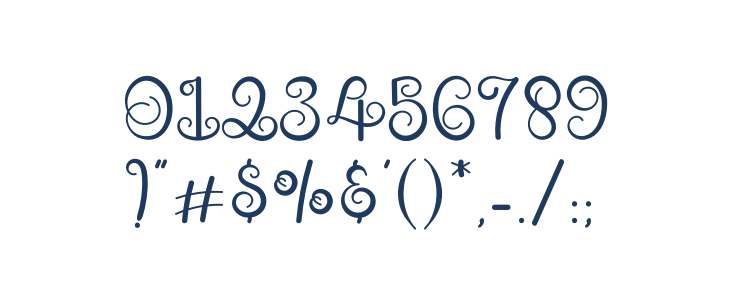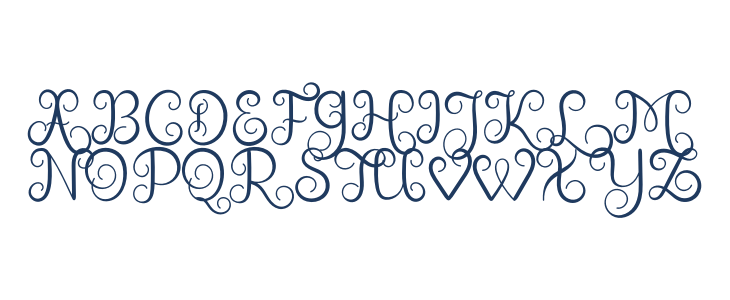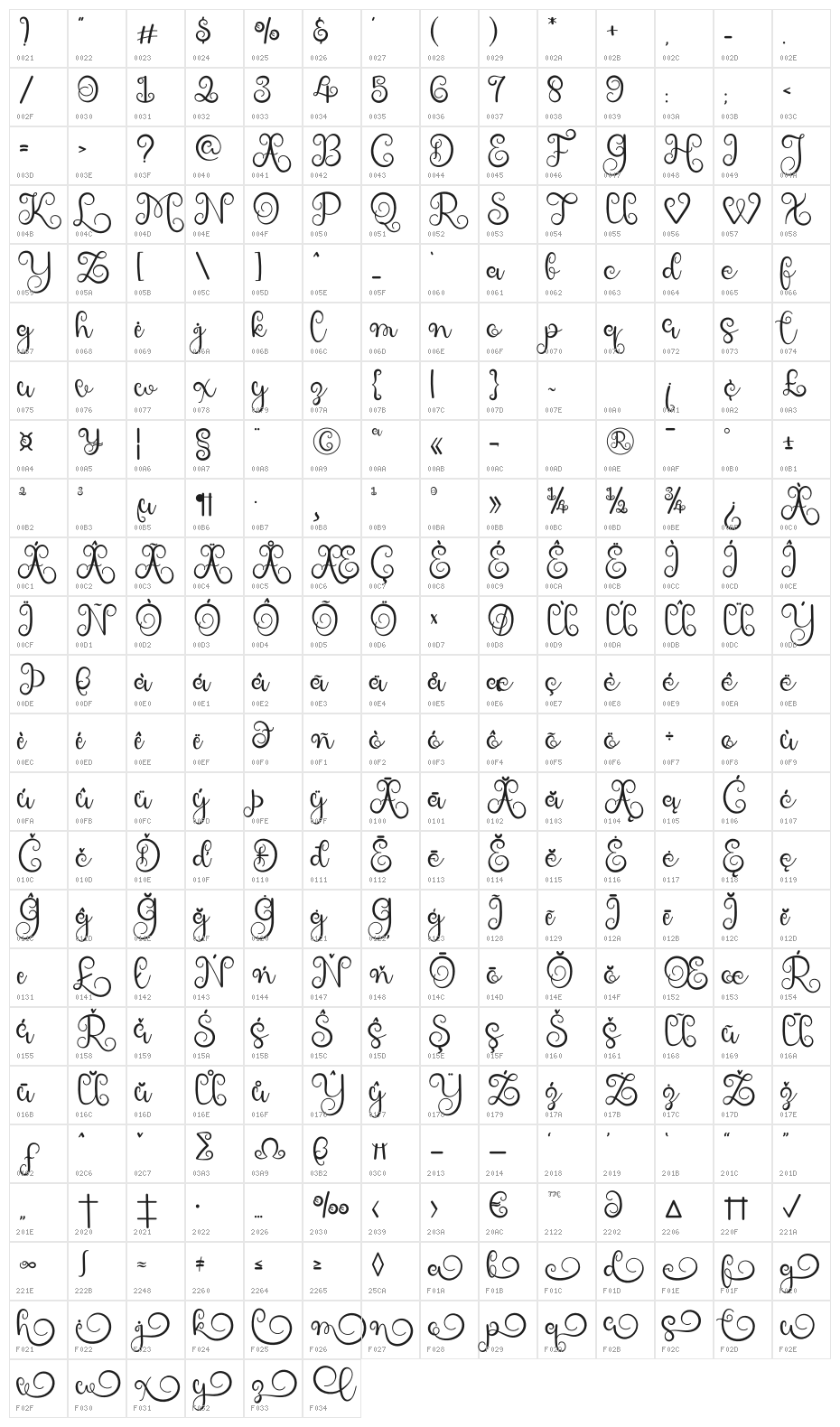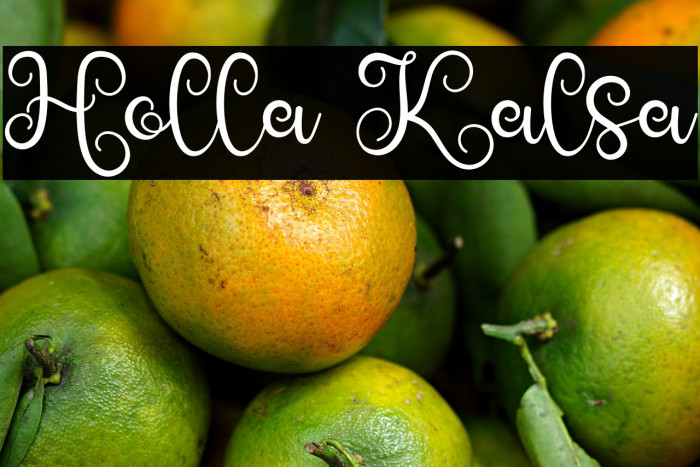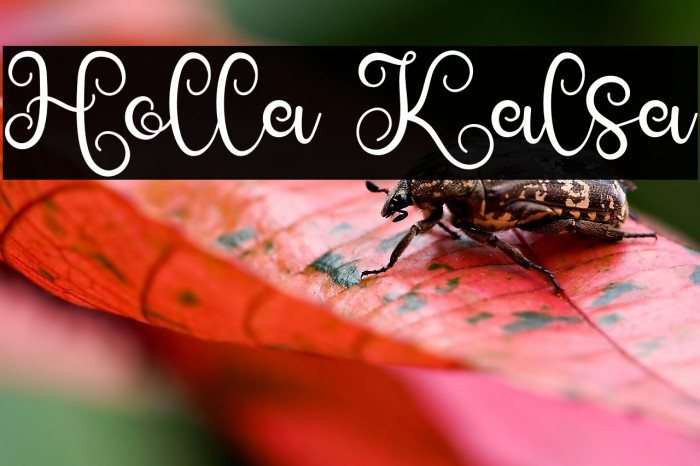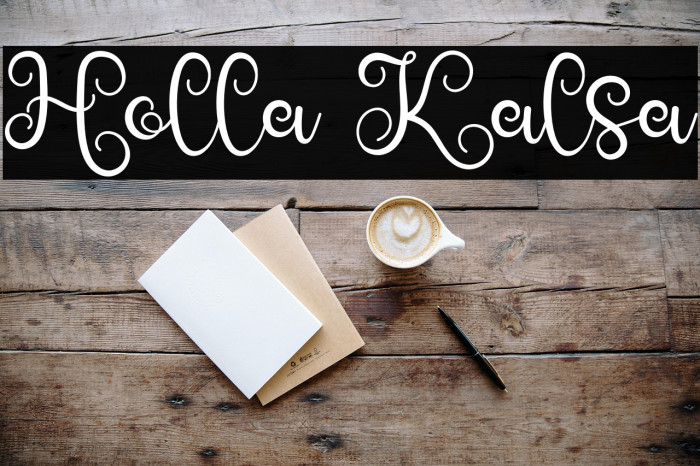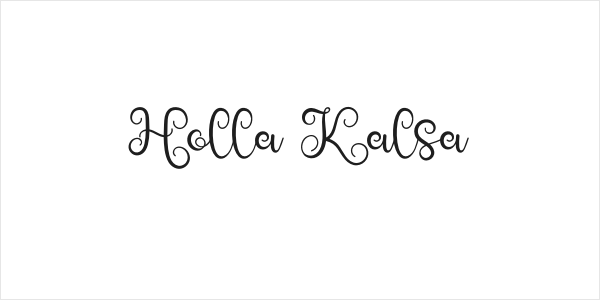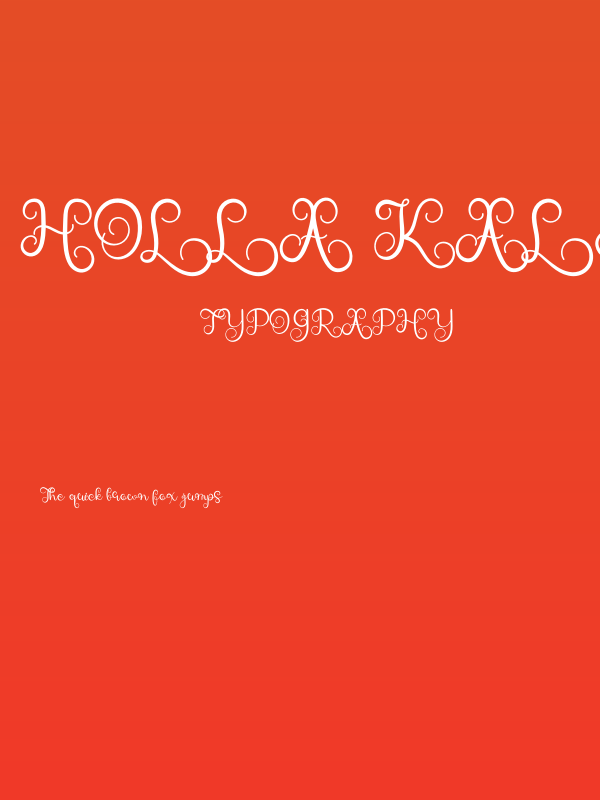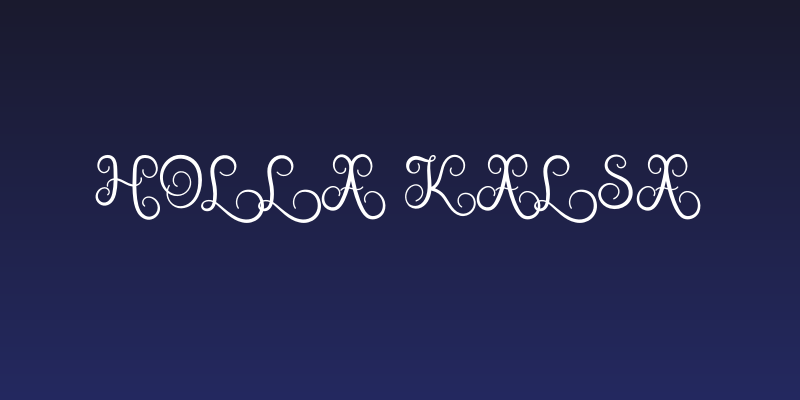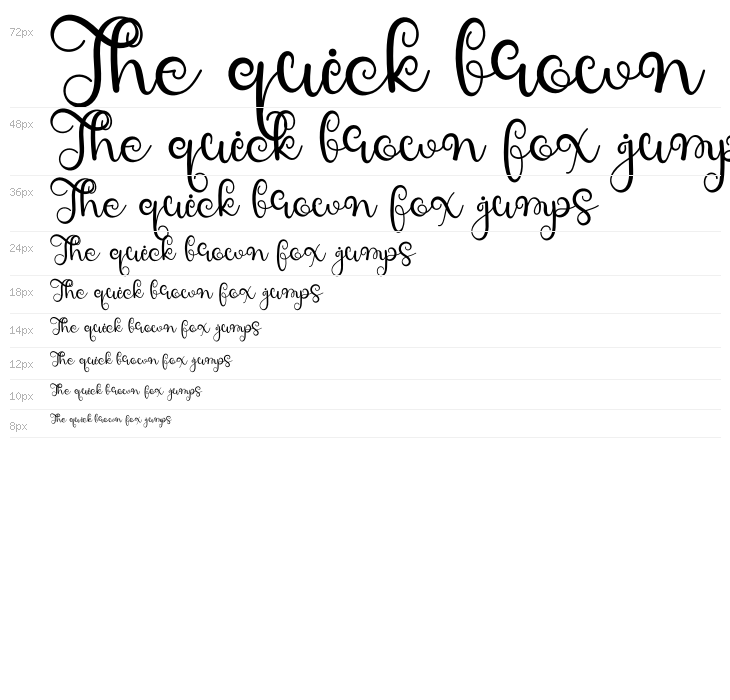
Holla Kalsa Font
Holla Kalsa Description
A decorative, curly script font featuring elaborate swirls and loops on both uppercase and lowercase letters, with playful and whimsical character shapes. The numbers and symbols maintain the same ornamental style, adding to the font's overall fanciful appearance.
| Overall Style | Decorative, Whimsical |
| Proposed Projects | Invitations, greeting cards, logos, decorative headlines, and branding for creative or whimsical themes. |